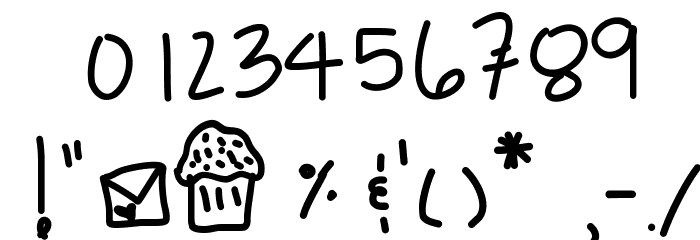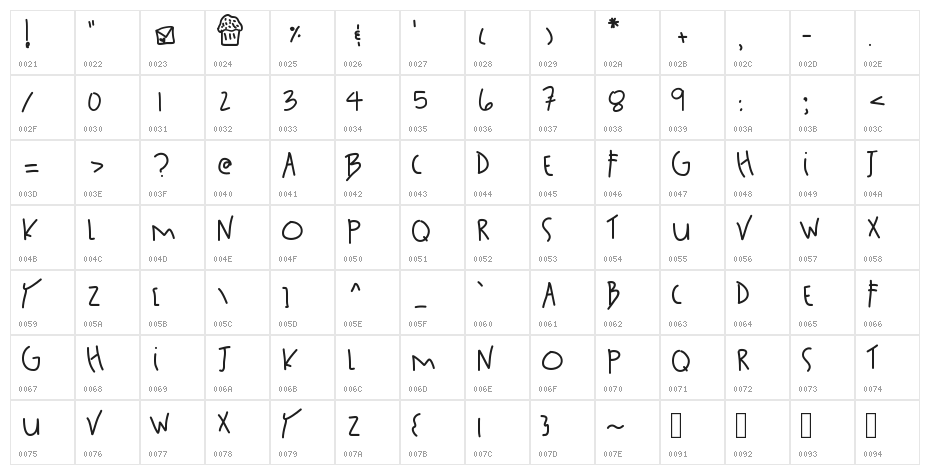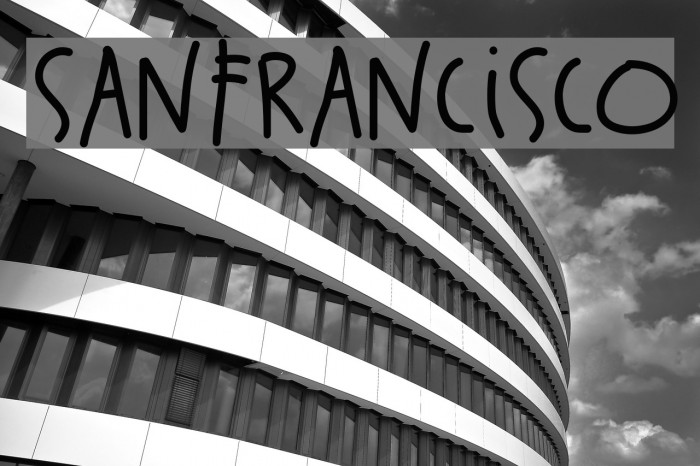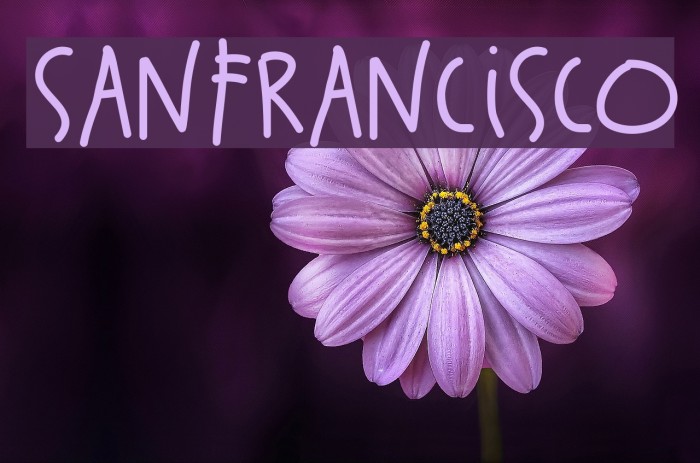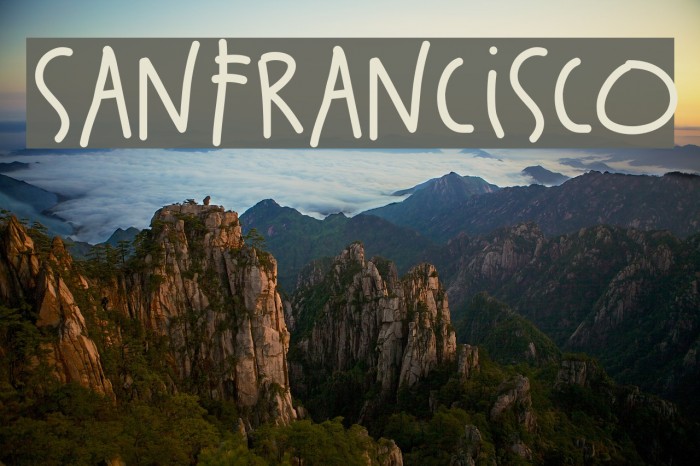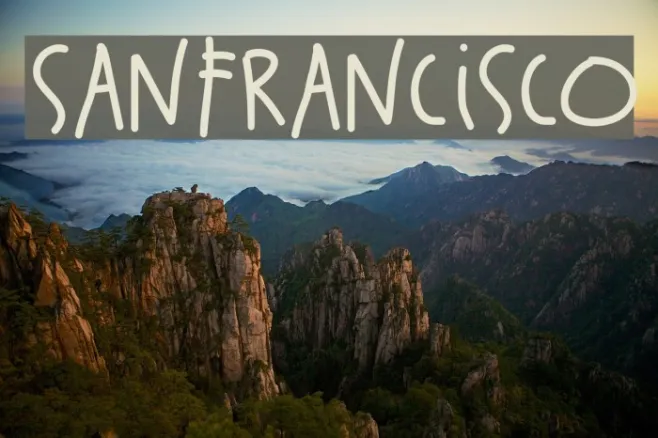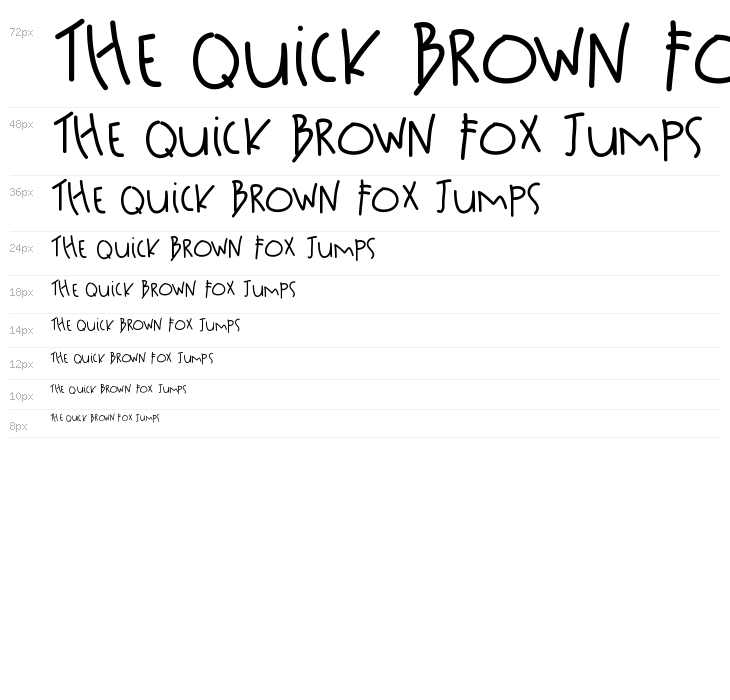
SanFrancisco Font
SanFrancisco Description
This playful and quirky font features a handwritten style with irregular strokes and a casual appearance. The letters are slightly tilted, giving them a dynamic and lively feel. The uppercase and lowercase characters maintain a consistent style, with rounded edges and varying line thickness that adds to the font's charm. The numbers and special characters follow the same whimsical design, making it suitable for creative and informal projects. Its unique personality makes it stand out, perfect for adding a personal touch to any design.
| Proposed Projects | Ideal for greeting cards, children's books, casual branding, and playful social media graphics. |